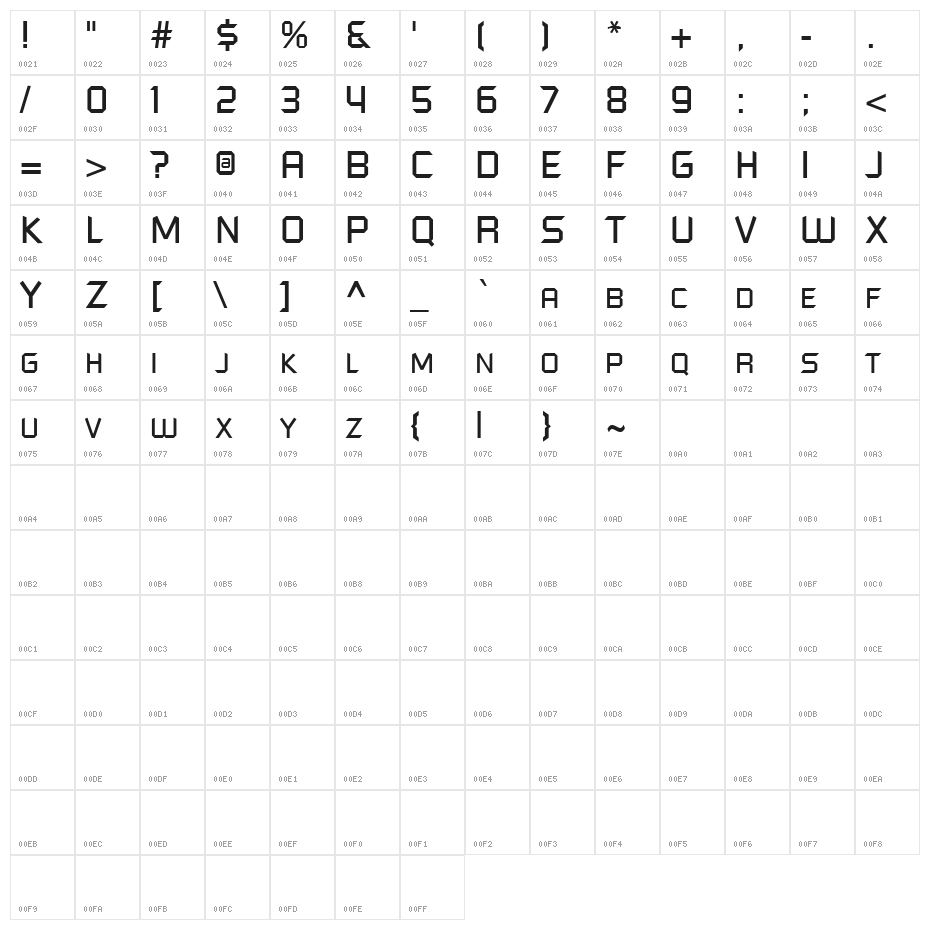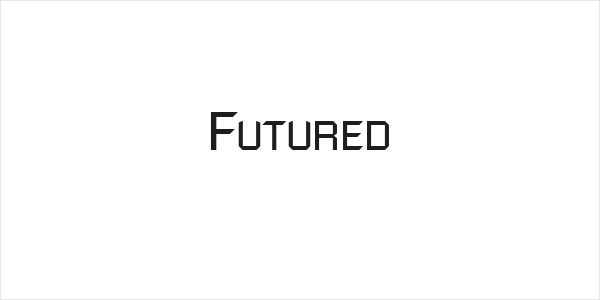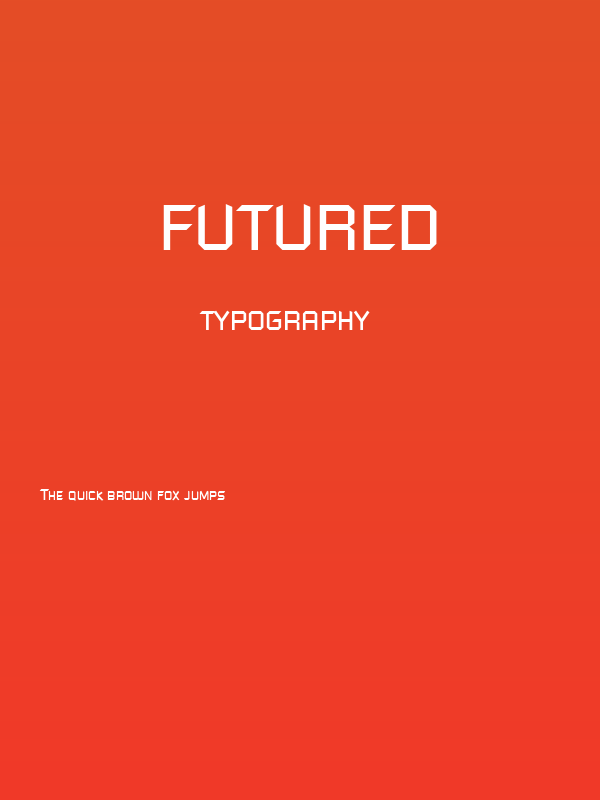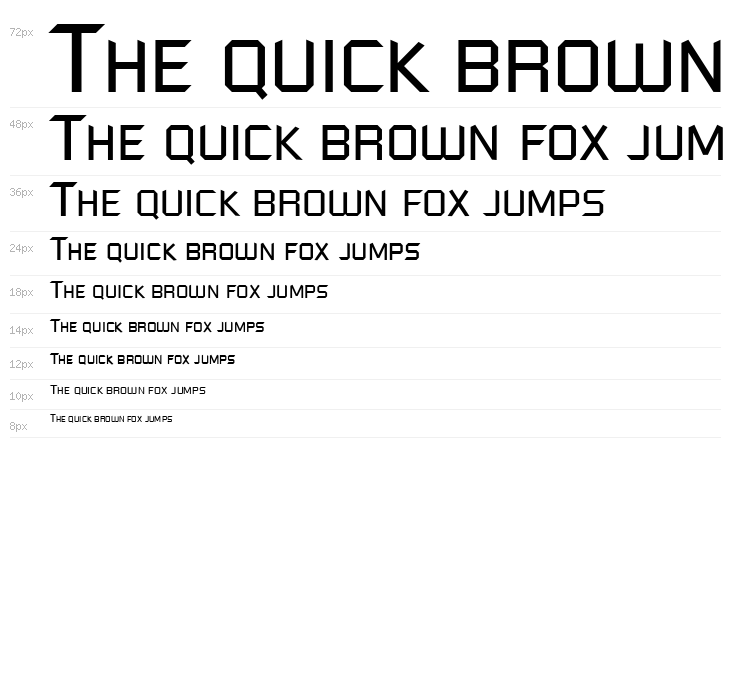
Futured Font
Futured Description
This font features a futuristic and geometric design, characterized by sharp angles and a bold presence. The uppercase and lowercase letters maintain a consistent structure, with a focus on straight lines and angular cuts, giving it a modern and tech-inspired look. The numerals and special characters follow the same design principles, ensuring uniformity across all glyphs. Its distinct style makes it stand out, suitable for projects that require a contemporary and edgy aesthetic.
| Proposed Projects | Ideal for technology branding, sci-fi movie posters, video game titles, and modern digital interfaces. |